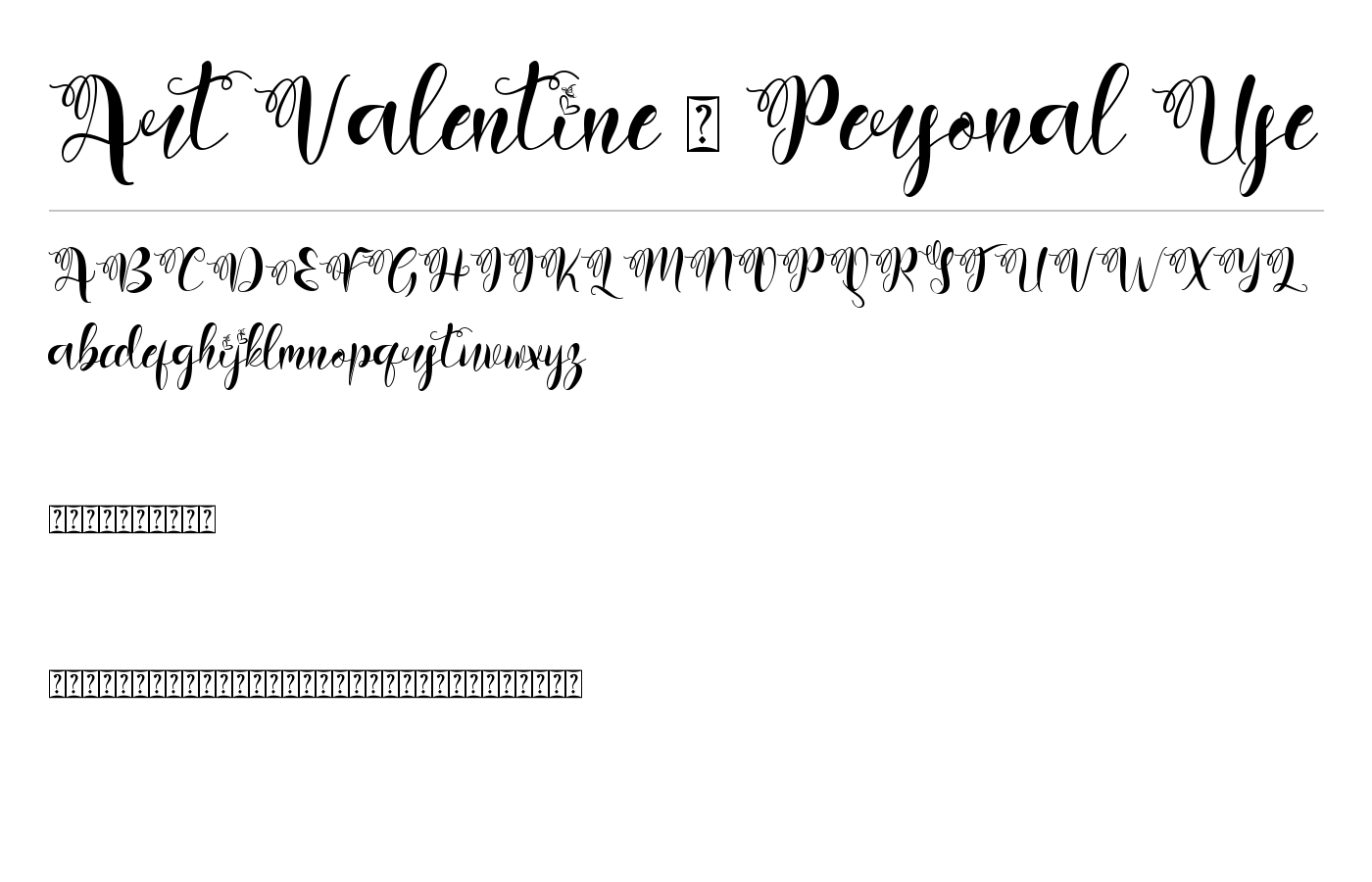
Art Valentine is an elegant script font featuring graceful, flowing strokes with delicate swashes and decorative flourishes, lending it a romantic and artistic charm. Its medium weight and high contrast strokes combined with ornate uppercase letters make it perfect for luxurious branding, wedding invitations, and feminine design projects where sophistication and warmth are desired. This font works best in headlines and decorative uses where its intricate details can shine without overwhelming the reader.
Art Valentine Font
About Art Valentine Font